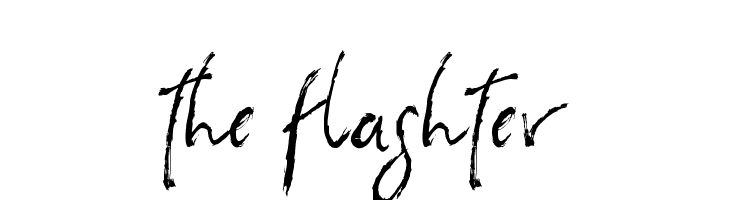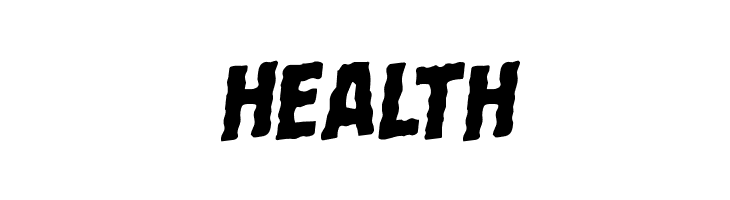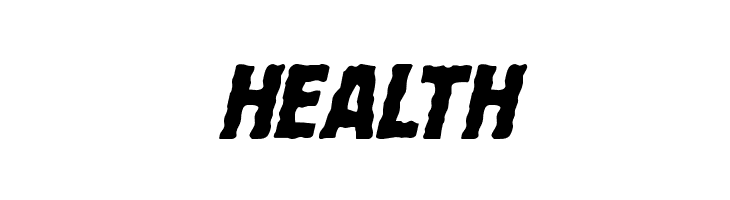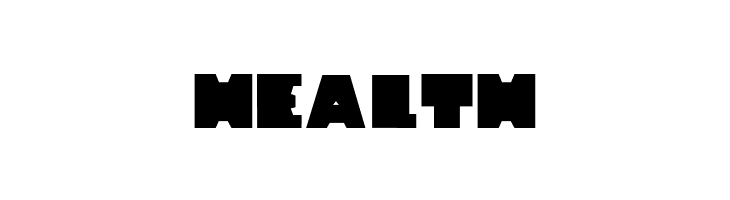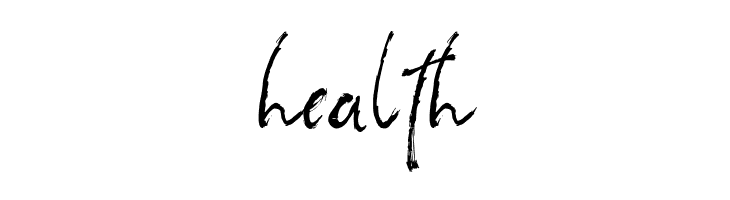
( Iconian Fonts - Daniel Zadorozny - www.iconian.com )
A bold, staggered italic font with a dynamic and edgy style.
( Iconian Fonts - Daniel Zadorozny - www.iconian.com )
A bold, staggered font with a dynamic, hand-drawn style.
( Marty Bampton )
A bold, geometric font with sharp angles and a modern style.
( JoeeCreative - Joe Creative - creativemarket.com/JoeeCreative )
A playful and elegant script font with flowing, cursive design.
( Intellecta Design - Paulo W - new.myfonts.com/foundry/Intellecta_Design/?refby=paulow )
An artistic script font with elegant, flowing lines and intricate loops.
( Marcloud - www.marcloud-design.com )
A sleek, modern font with tall, narrow characters and a minimalist design.
( Marcloud - www.marcloud-design.com )
A modern, geometric font with tall, narrow characters and unique styling.
( Marcloud - www.marcloud-design.com )
A modern outline font with a clean, artistic style.
( Muhammad Akbar - creativemarket.com/sinfa )
A dynamic, brush-style handwritten font with an energetic and raw appearance.
( Jacqueline Diaz )
A distressed, hand-drawn font with chaotic, overlapping strokes for a grunge aesthetic.